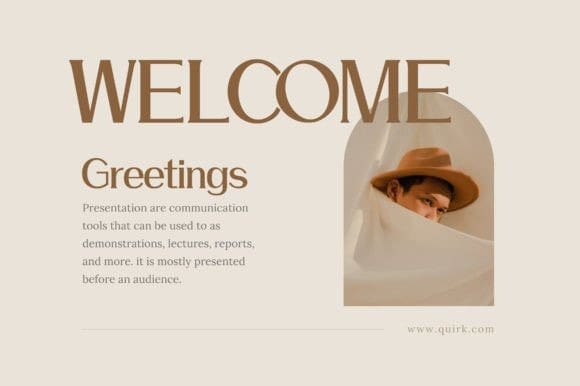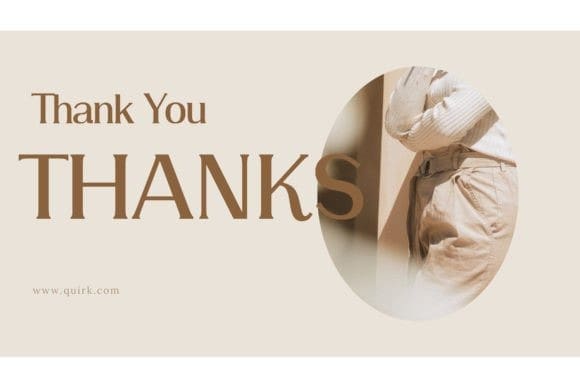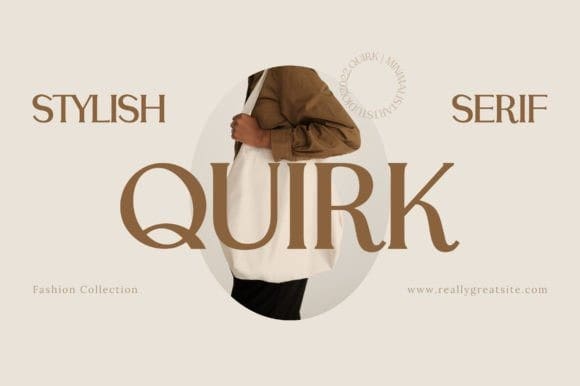
Quirk Serif Font
Quirk Serif Font is a beautiful, chic , stylish and elegant serif typeface. it contains uppercase letters, numerals, a large range of punctuation. Serif font with modern style. Created for poster, web design, branding, illustrations, badges and many more.